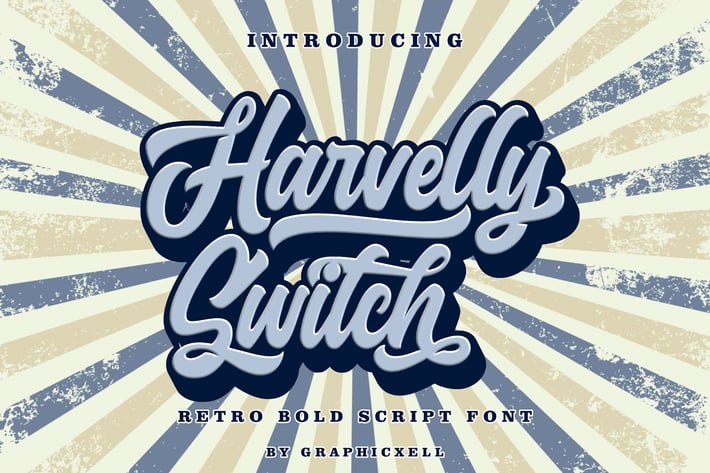
Haverlly Switch - Bold Script Font
Haverlly Switch Bold Script Font – Dynamic and Stylish Handwritten Typeface
The Haverlly Switch Bold Script Font is a dynamic and stylish handwritten font that adds energy and personality to any design. Its bold strokes and flowing curves create an inviting and lively feel. Therefore, it is perfect for branding, logos, packaging, invitations, and social media graphics.
Because the font features thick and thin contrasts with smooth connections, it catches the eye easily. This makes your message stand out while still feeling natural and approachable. Moreover, its playful style helps convey warmth and creativity without sacrificing readability.
In addition, Haverlly Switch comes with a bold weight that works well for headlines and titles. It pairs nicely with simple sans-serif fonts to balance boldness with clarity. This flexibility makes it a great choice for both digital and print projects.
Furthermore, the font’s smooth, connected letters provide a sense of flow and movement. This adds personality and a handcrafted touch to your work. It fits especially well with designs that want to express fun, friendliness, or a personal vibe.
In summary, the Haverlly Switch Bold Script Font offers:
- Bold and lively handwritten letterforms
- Smooth connections that create flow
- High contrast strokes for attention
- Great pairing potential with sans-serifs
- Versatility for branding and creative projects
Overall, this font helps designers create eye-catching and energetic designs. It adds a human touch while maintaining strong visual impact and easy readability.